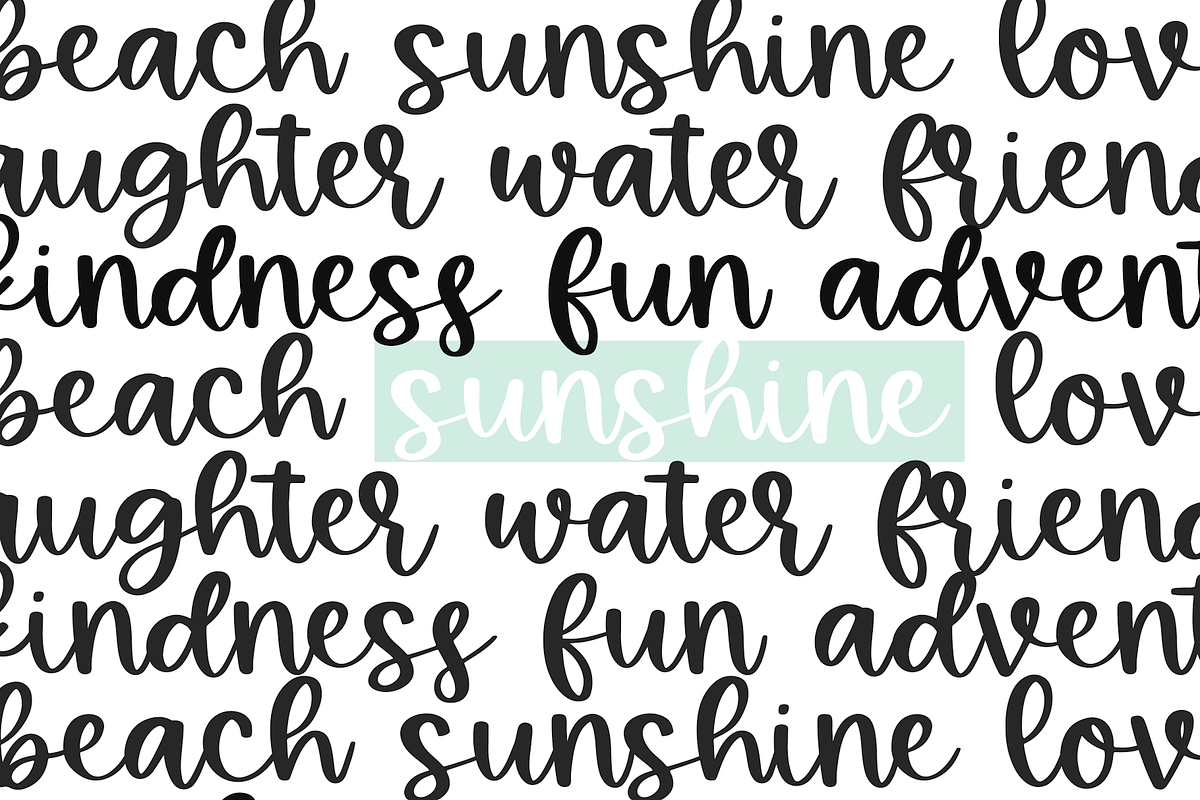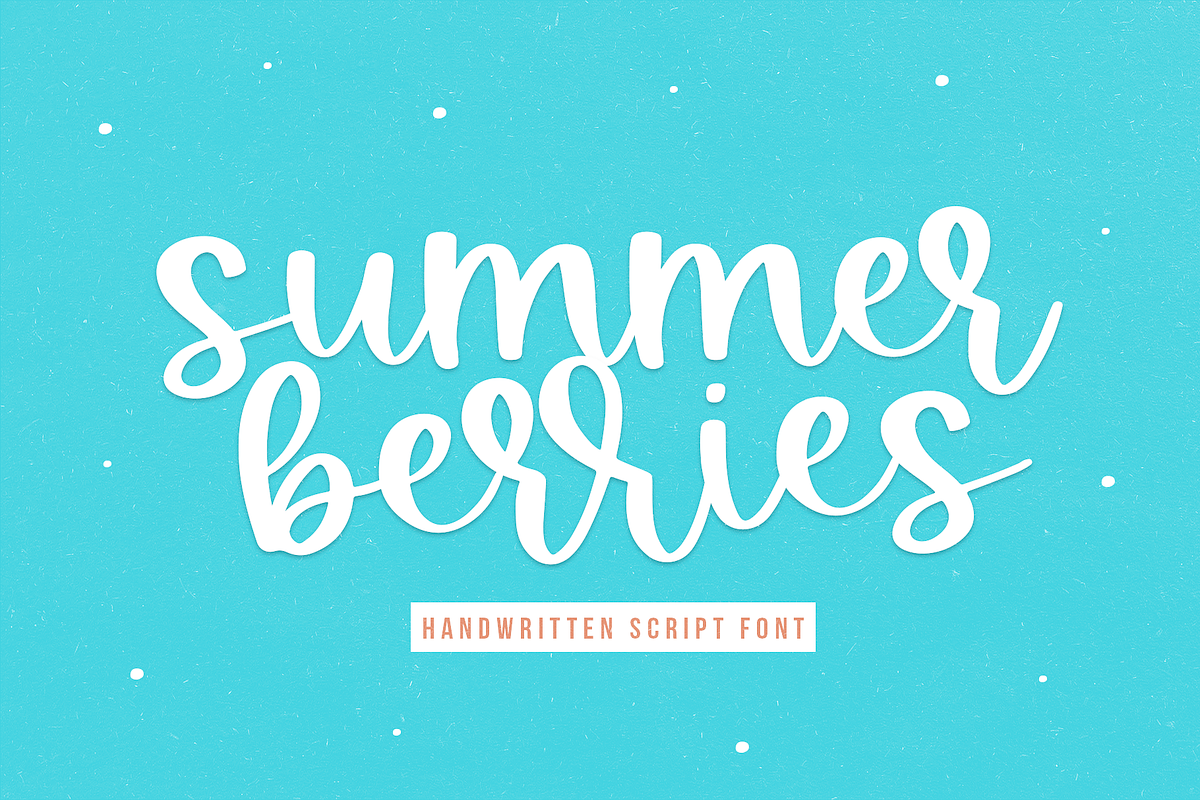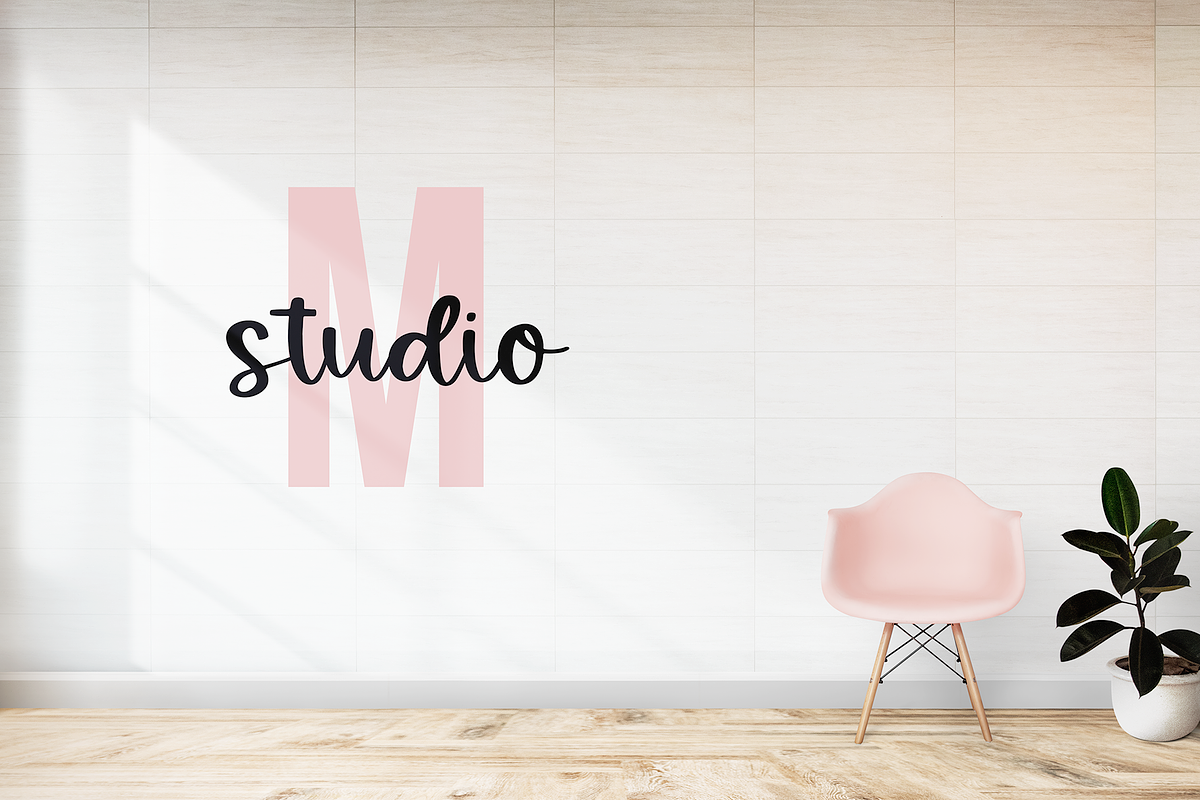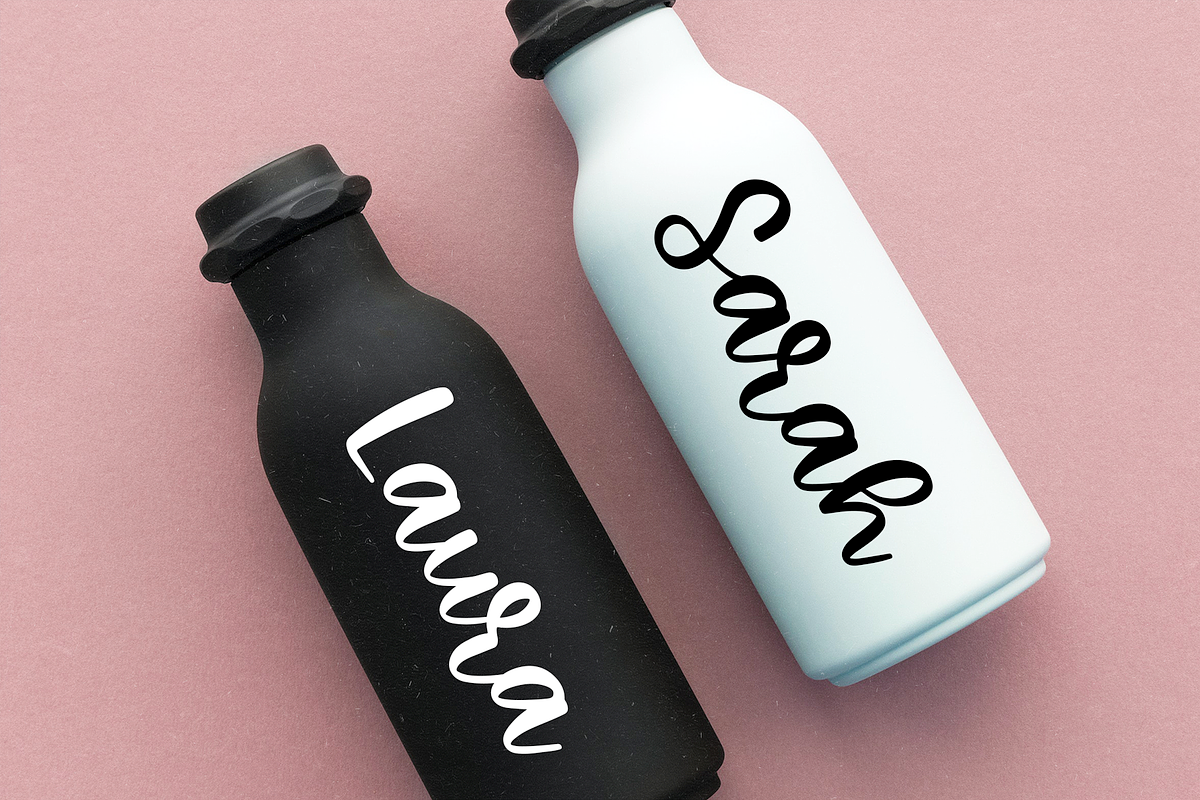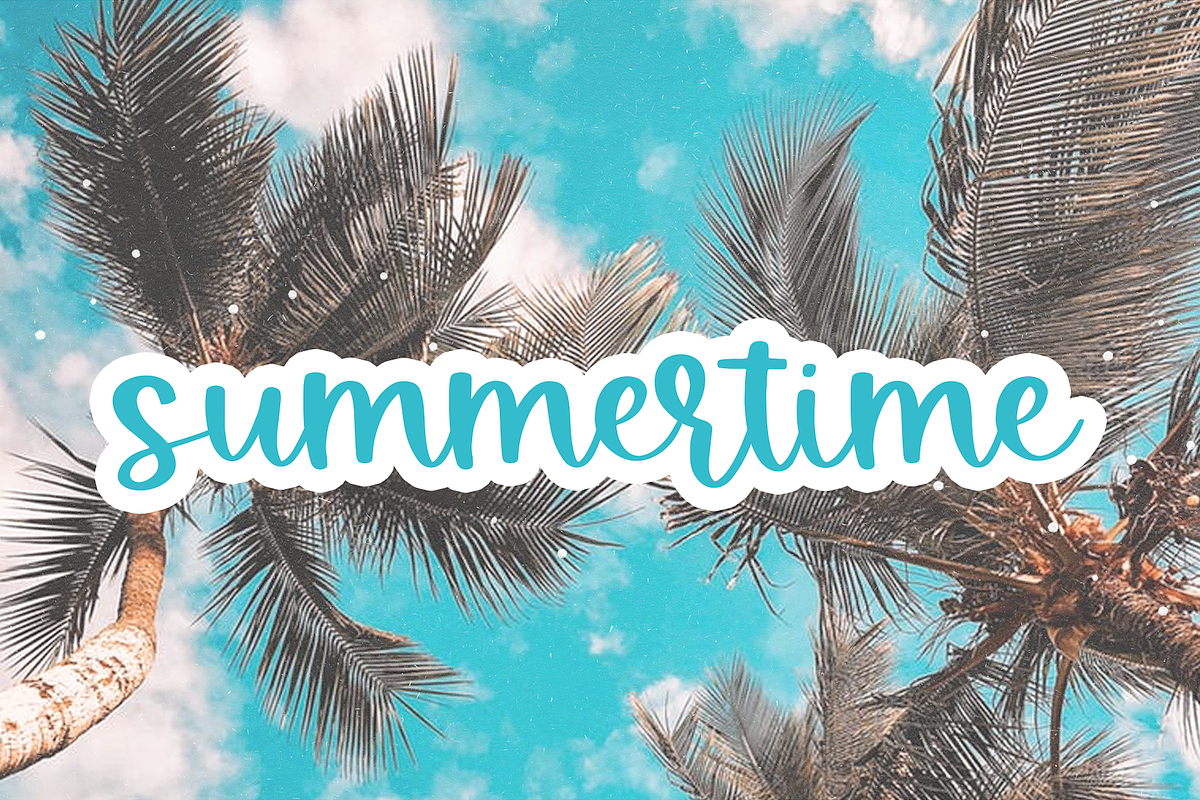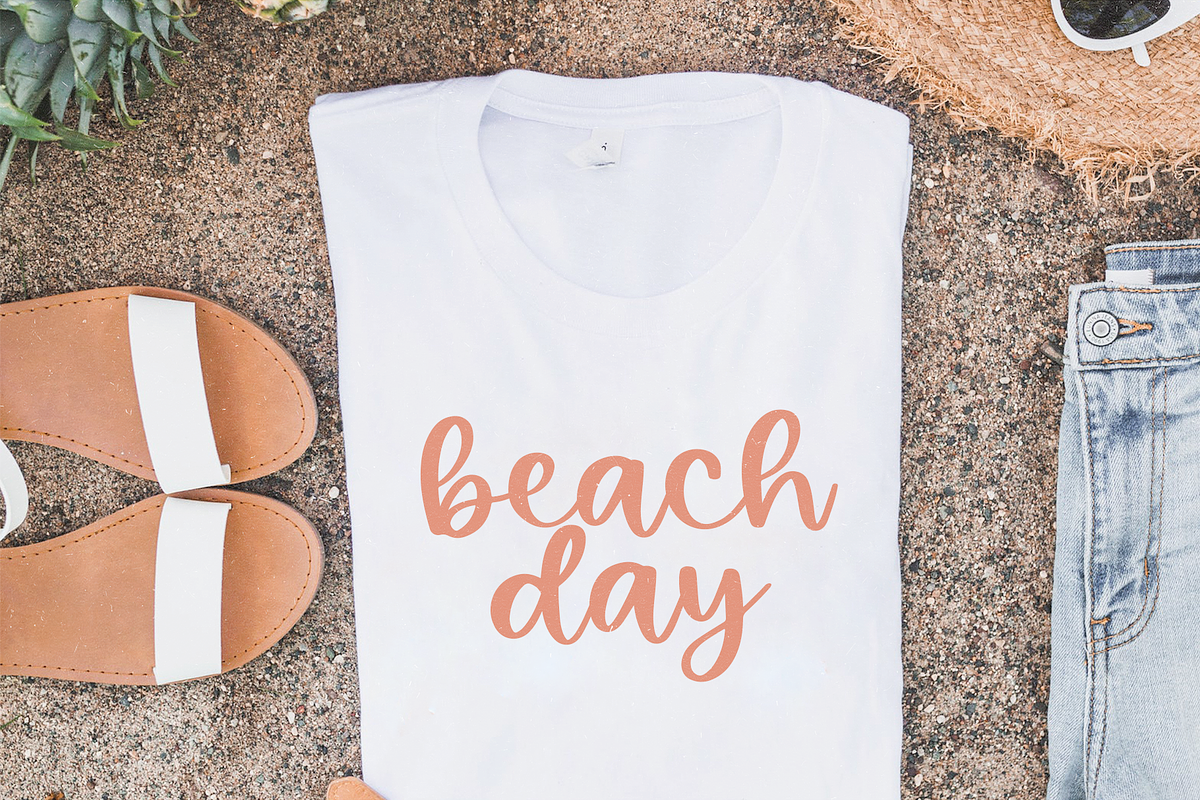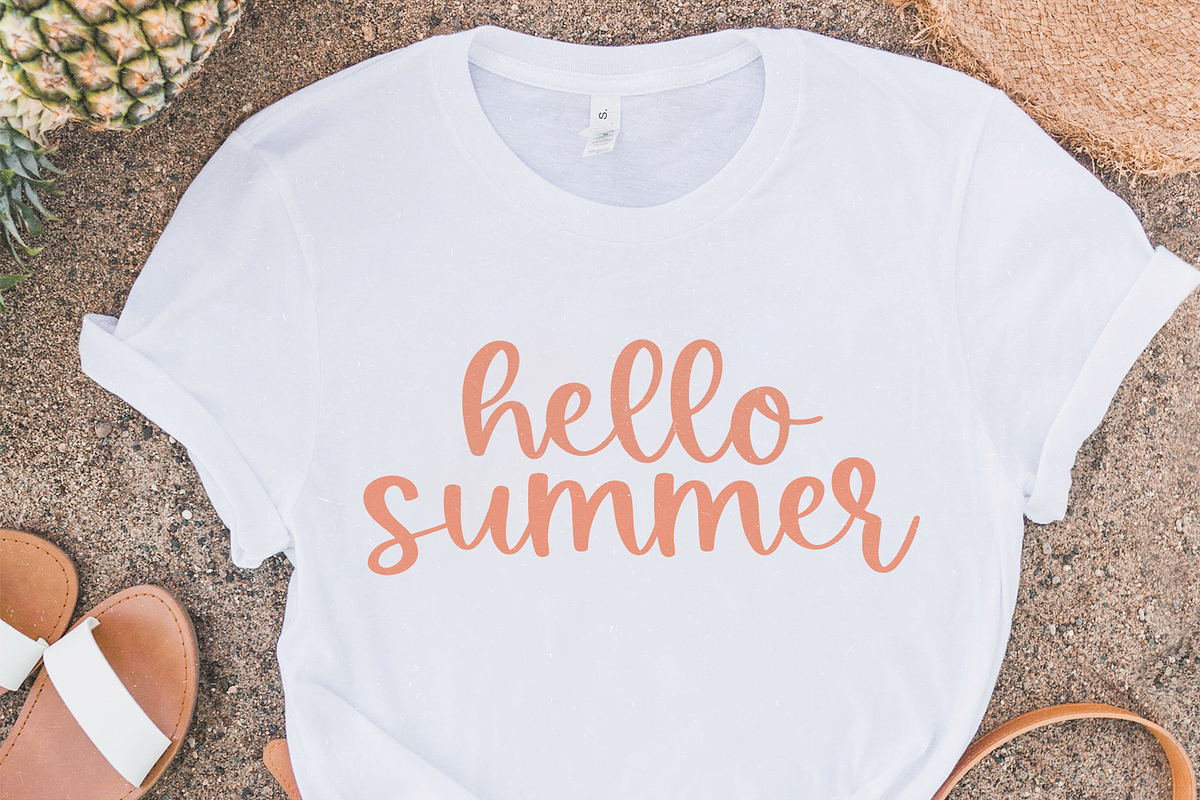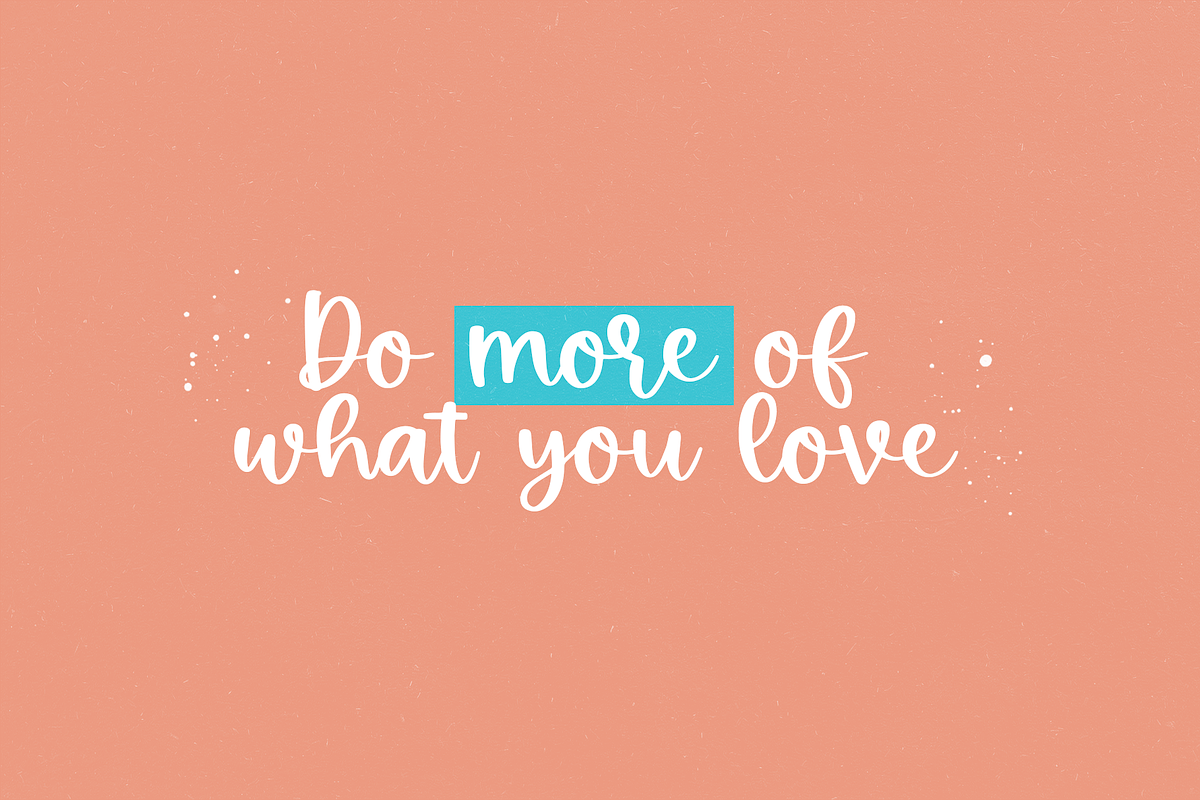
Summer Berries | Fun Script Font
Summer Berries is a fun handwritten script font.
This font is perfect for your craft projects, branding, logos, shirt deisgn, svg designs and more!
Summer Berries | Fun Script Font by KA Designs fits naturally into Branding, posters, packaging, typography.